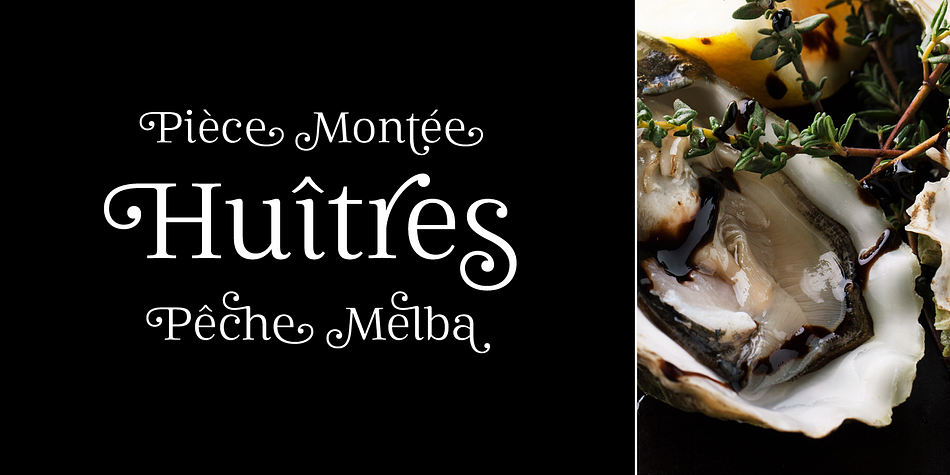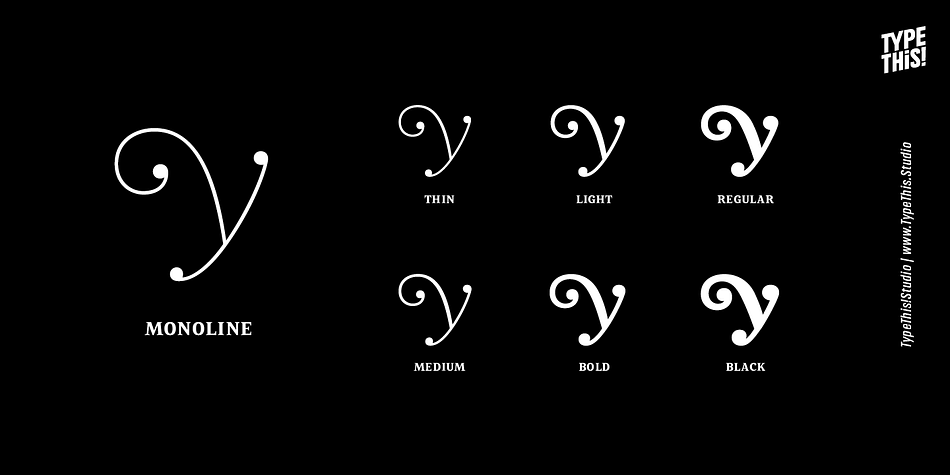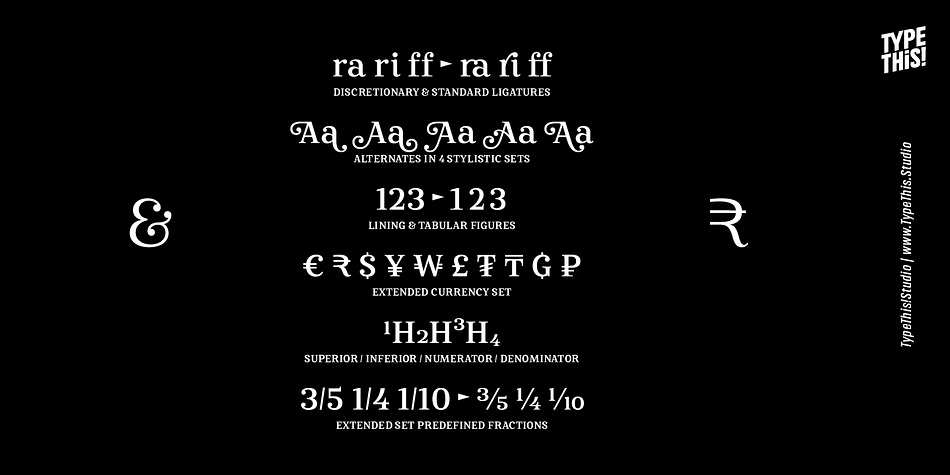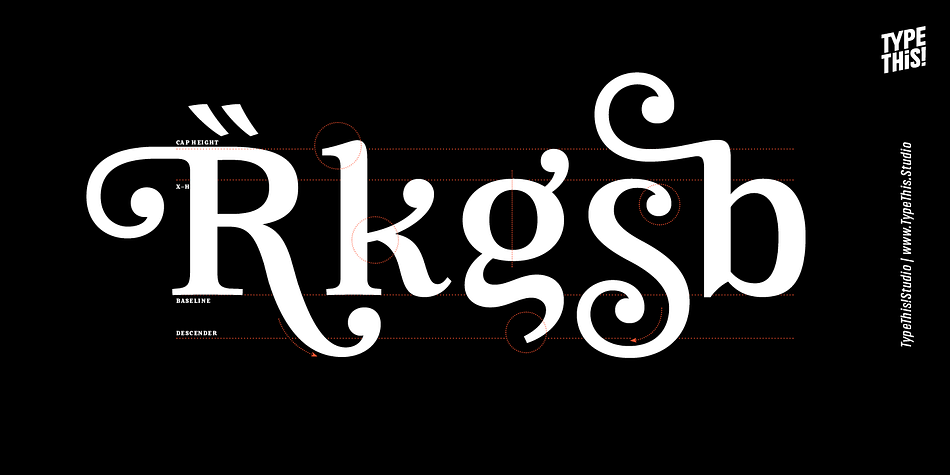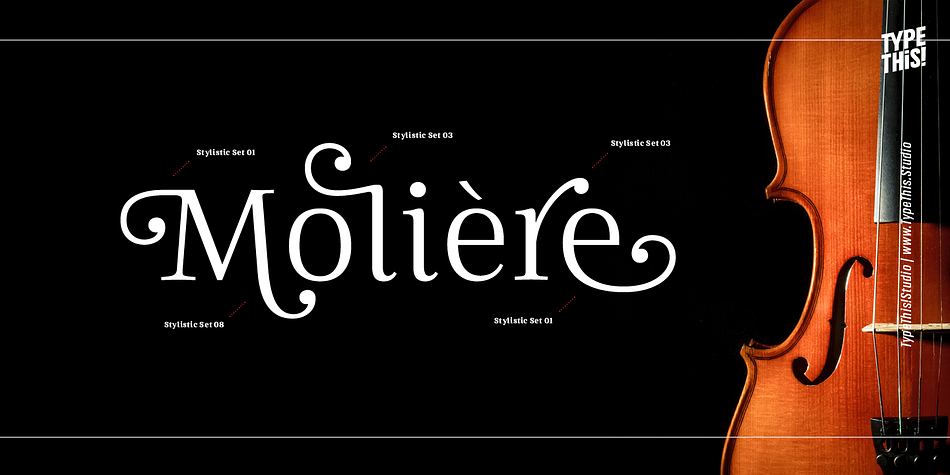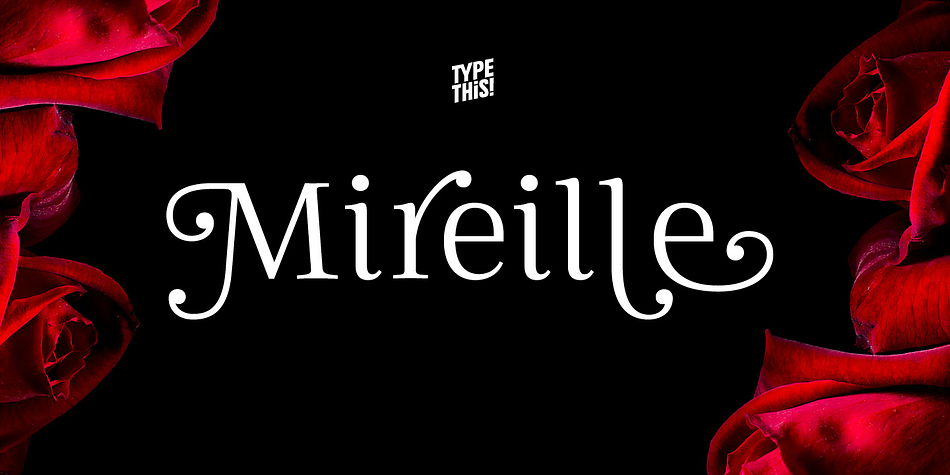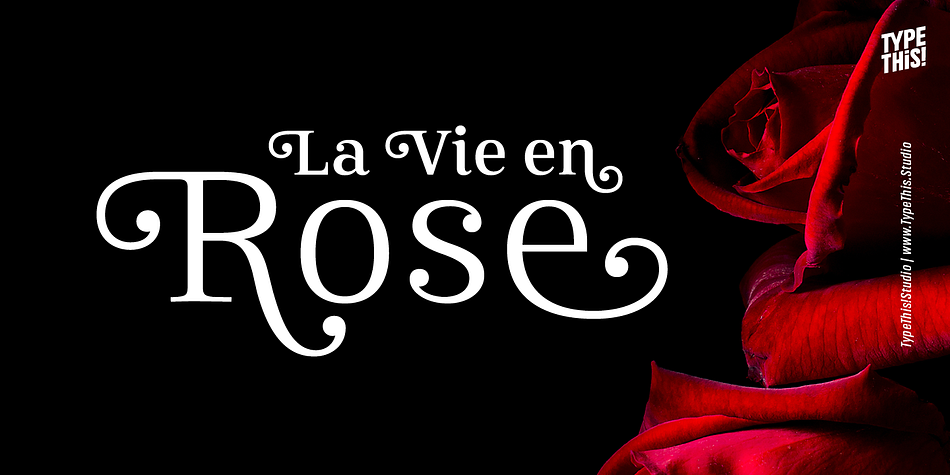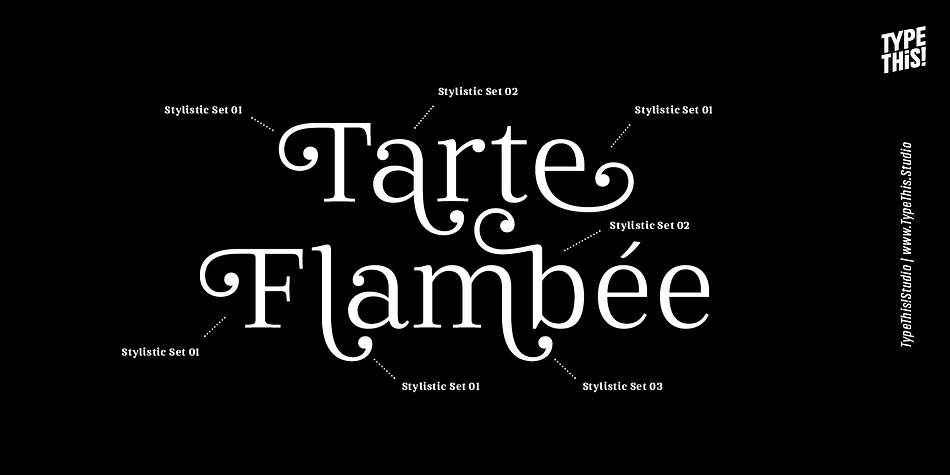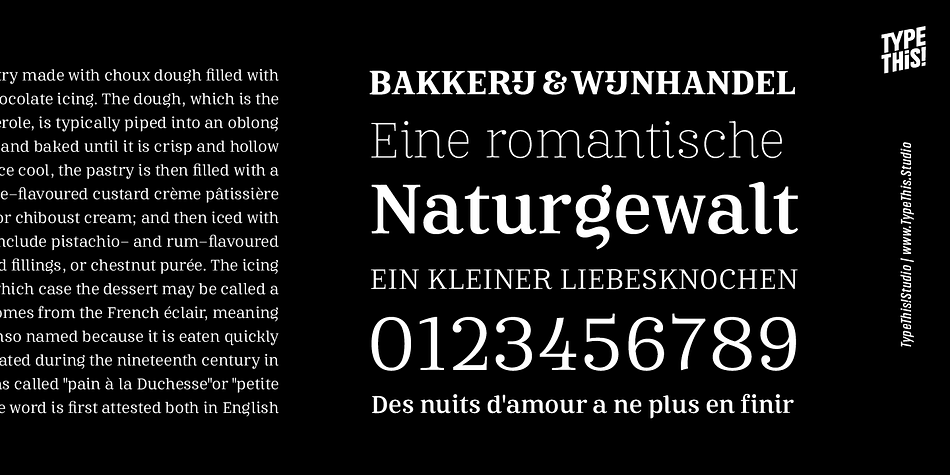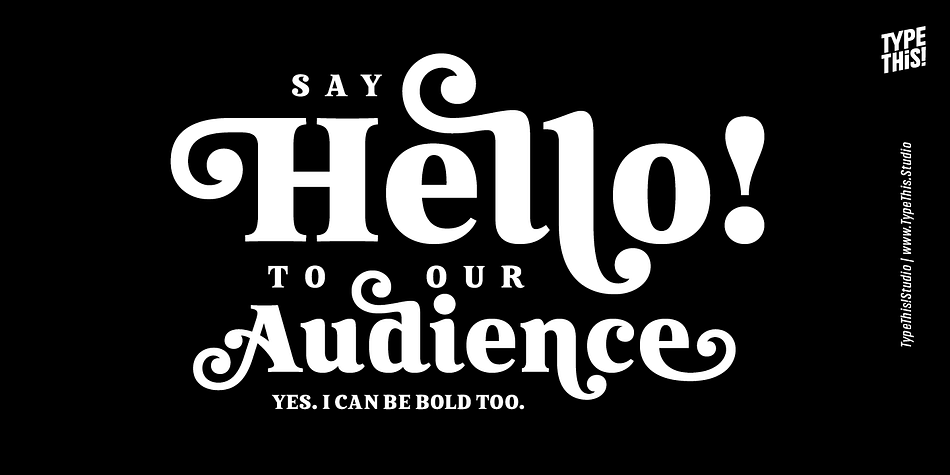
Mireille
Designed by Anita Jürgeleit, Mireille is a serif font family. This typeface has seven styles and was published by Anita Jürgeleit.
Designed by Anita Jürgeleit, Mireille is a typographic homage to french culture. Your journey through gourmet food, classical music, opera and wine tours over 100 romantic alternates and ligatures that allow you to add outstanding elegance to your typography.
Mireille is an effective set for creating identities for branding, posters, book covers, headlines, logotypes, restaurants, menu cards, wedding invitations and so on.
All your needs are supported by Mireille with a character set of 1084 glyphs covering all European languages and including advanced Open Type features as 4 Stylistc Sets full with elegant Alternates, Standard and Discretionary Ligatures, Extended Numberset and Swashed Alternates. Take care: you might have a crush on this typeface  – La vie, c’est beau!